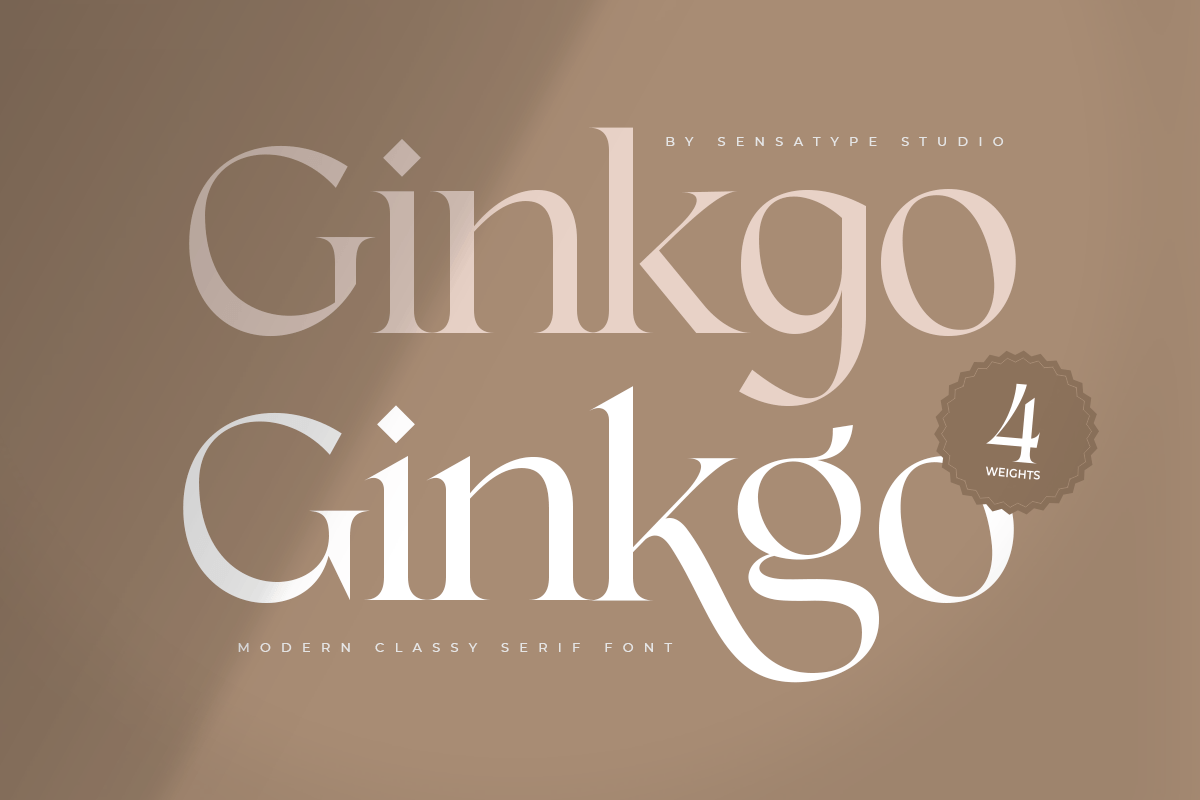
Ginkgo
-Modern Classy Serif Font
Ginkgo - Modern Classy Serif Font
Ginkgo is a modern classy serif font family designed for designers who need a sophisticated and versatile typography system. Featuring elegant serif details, balanced proportions, and refined letterforms, Ginkgo brings a premium appearance to modern branding projects.
Including 4 font weights, ligature features, and alternate characters, Ginkgo gives designers the flexibility to create various typography combinations and unique visual identities.
Perfect for luxury branding, logo design, editorial layouts, fashion projects, packaging, invitations, and premium marketing materials. Ginkgo helps create elegant designs with a timeless serif character.